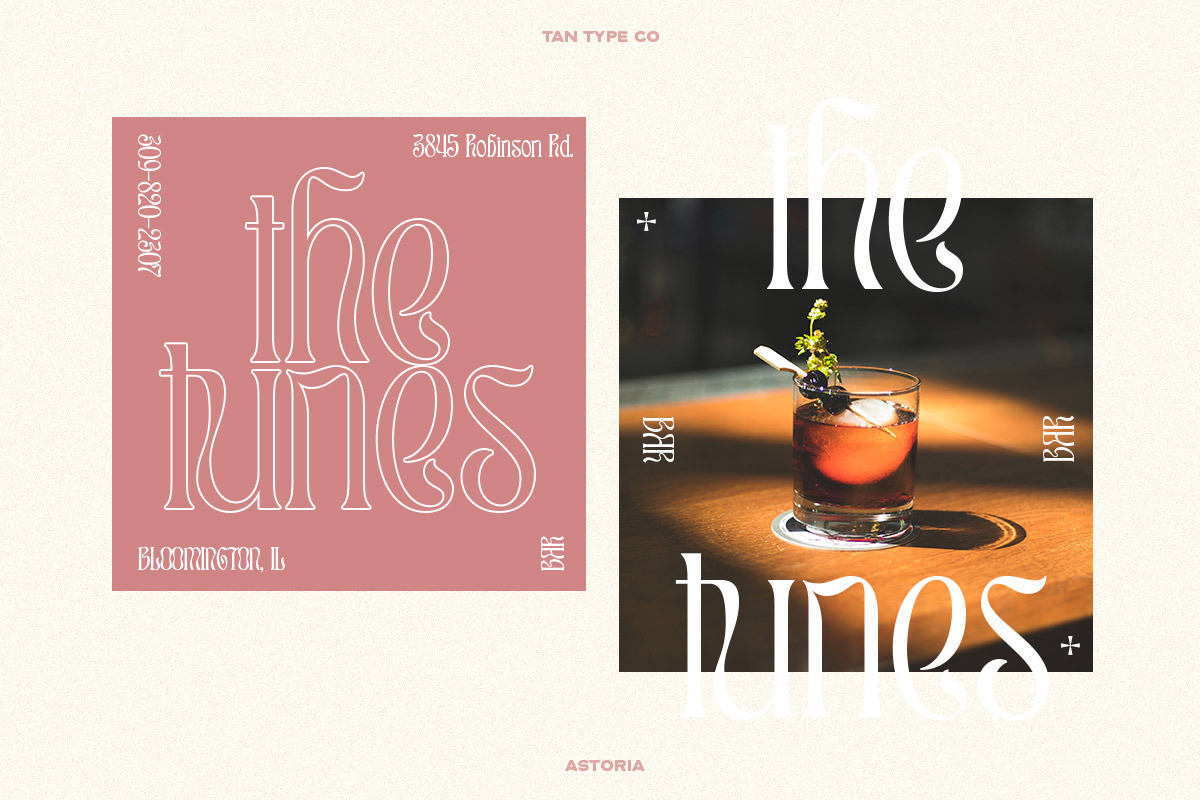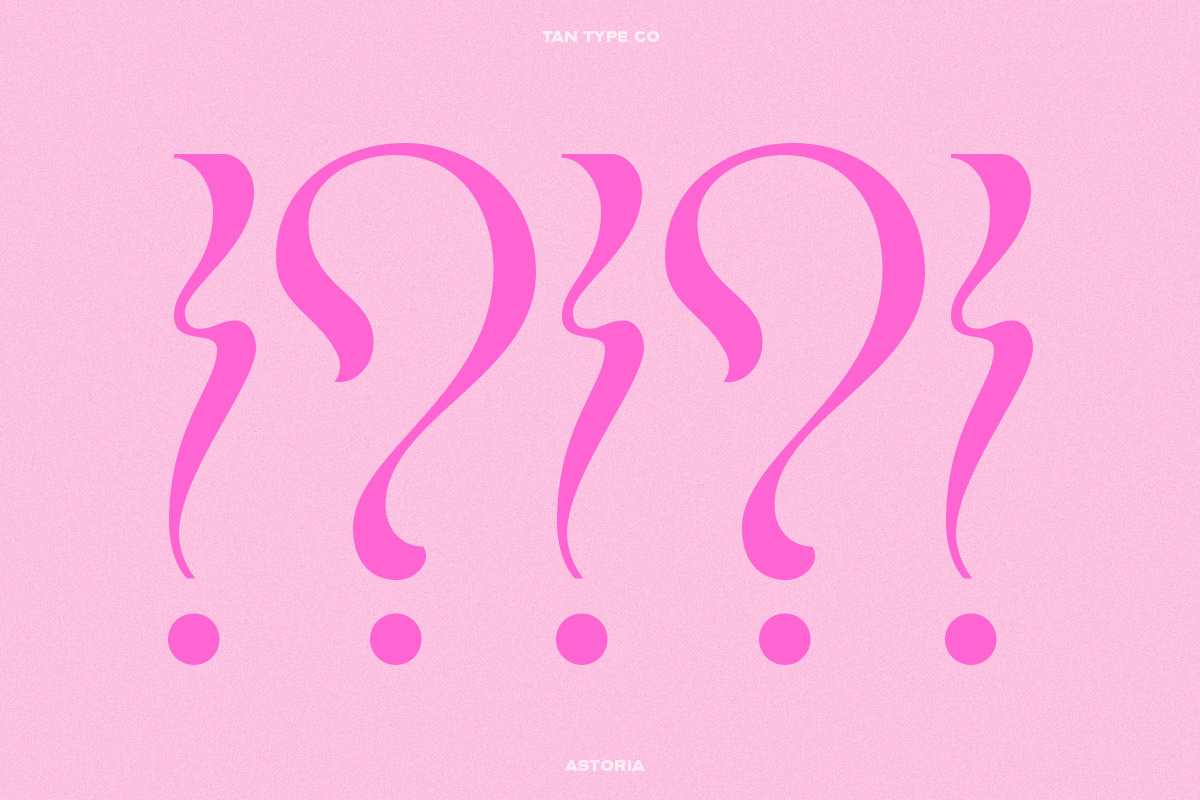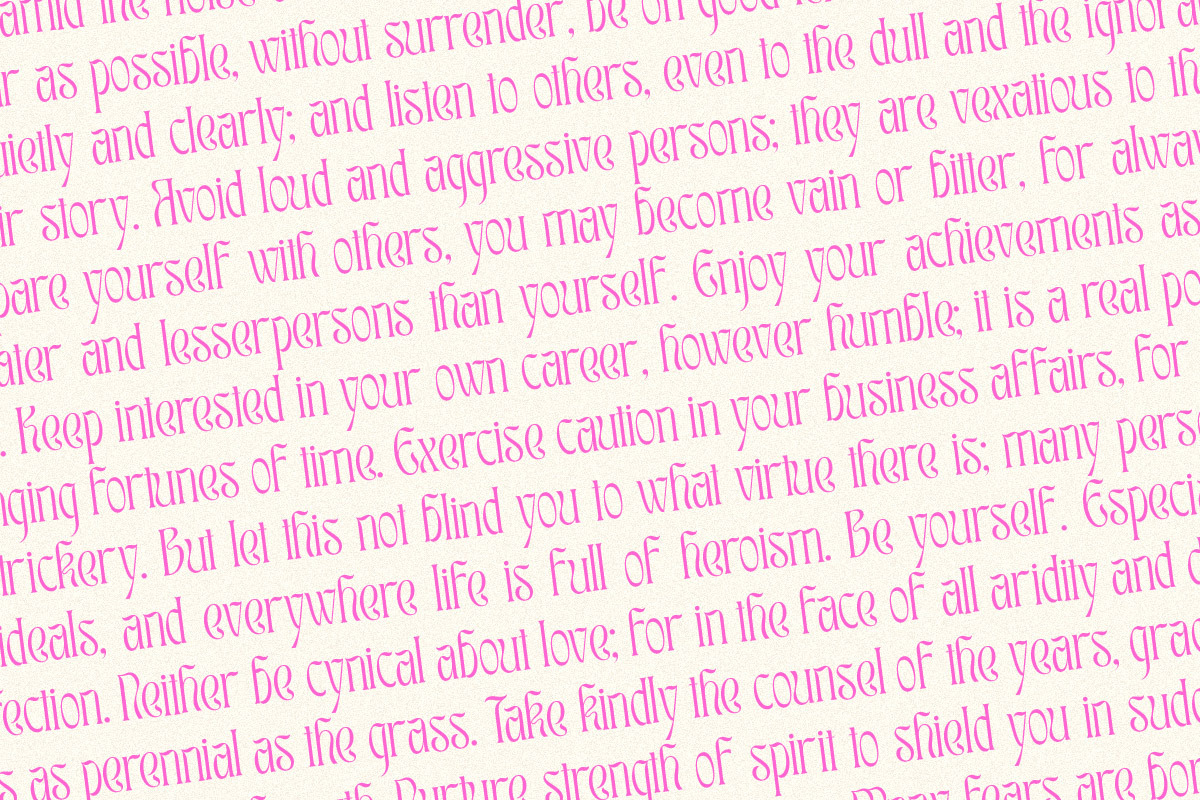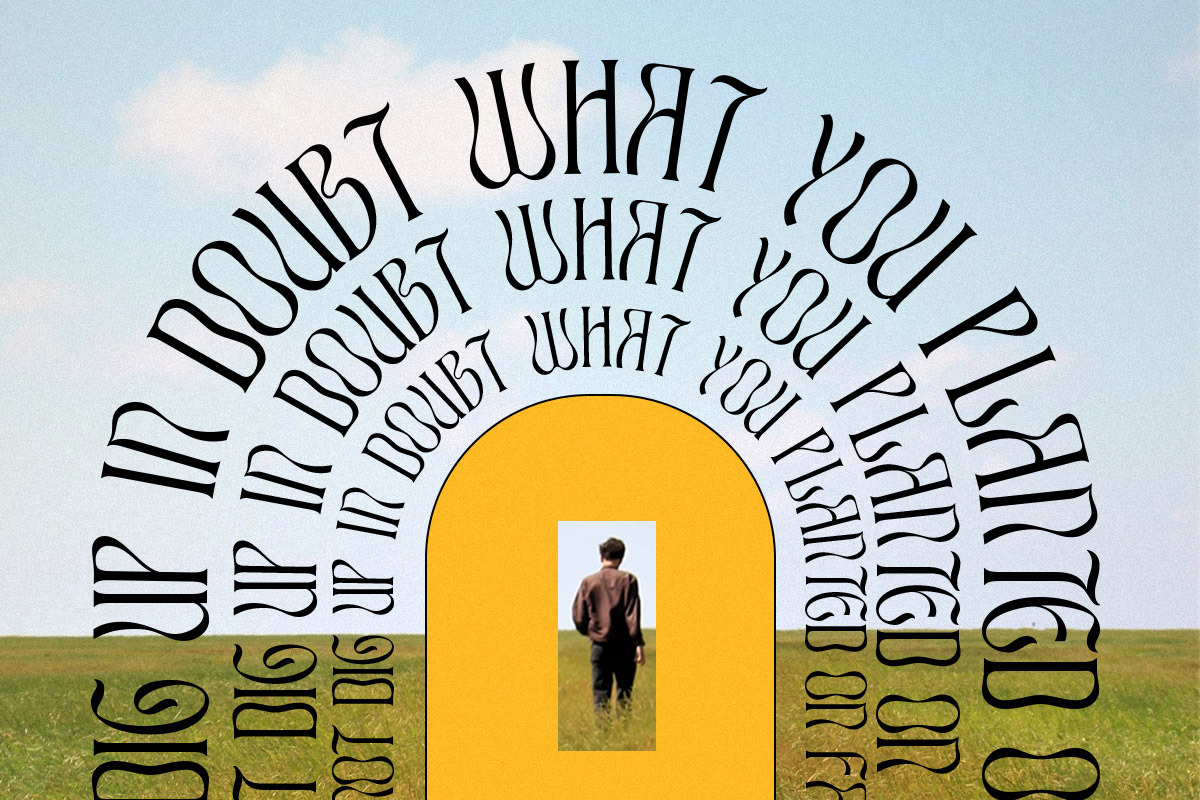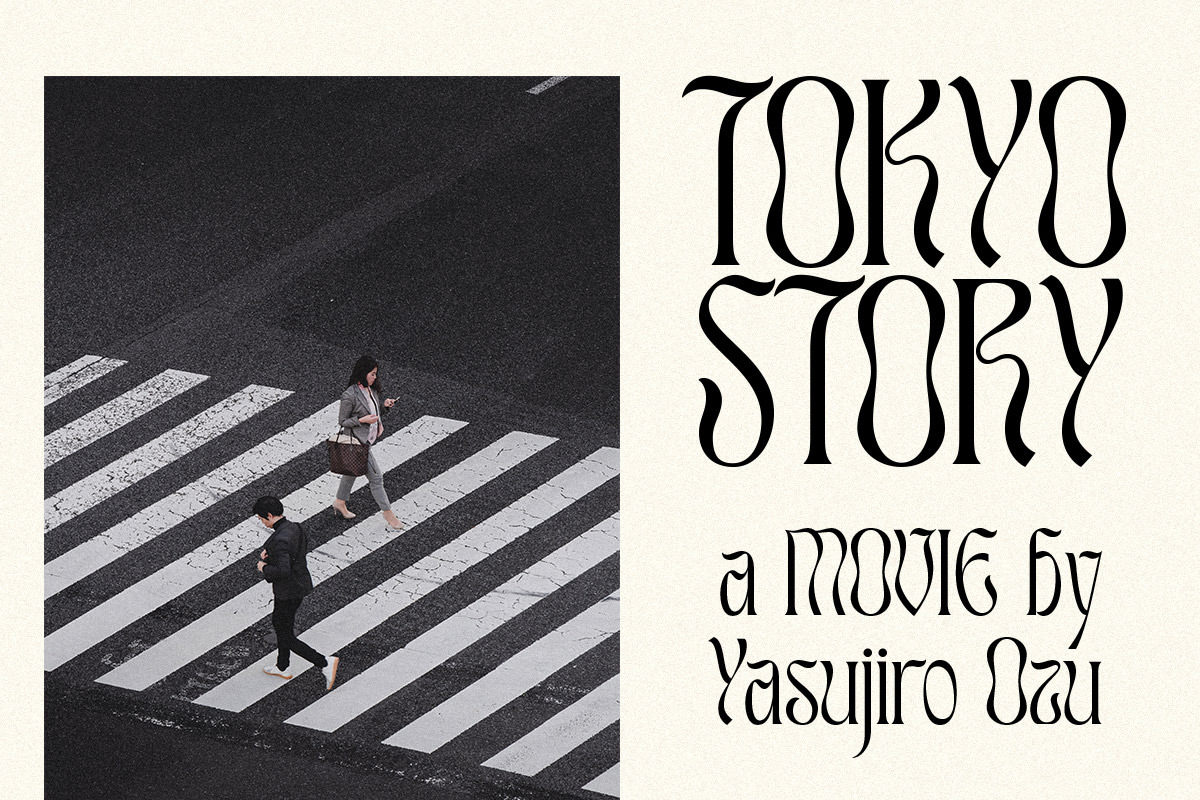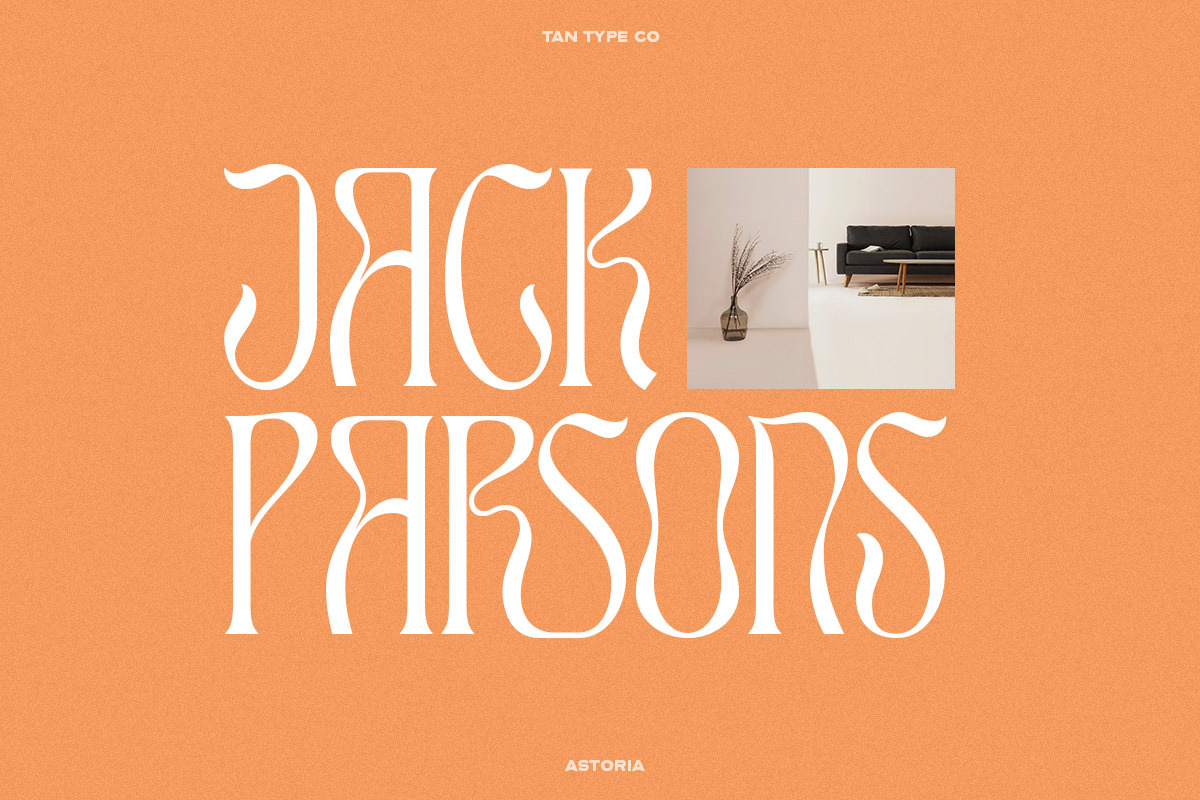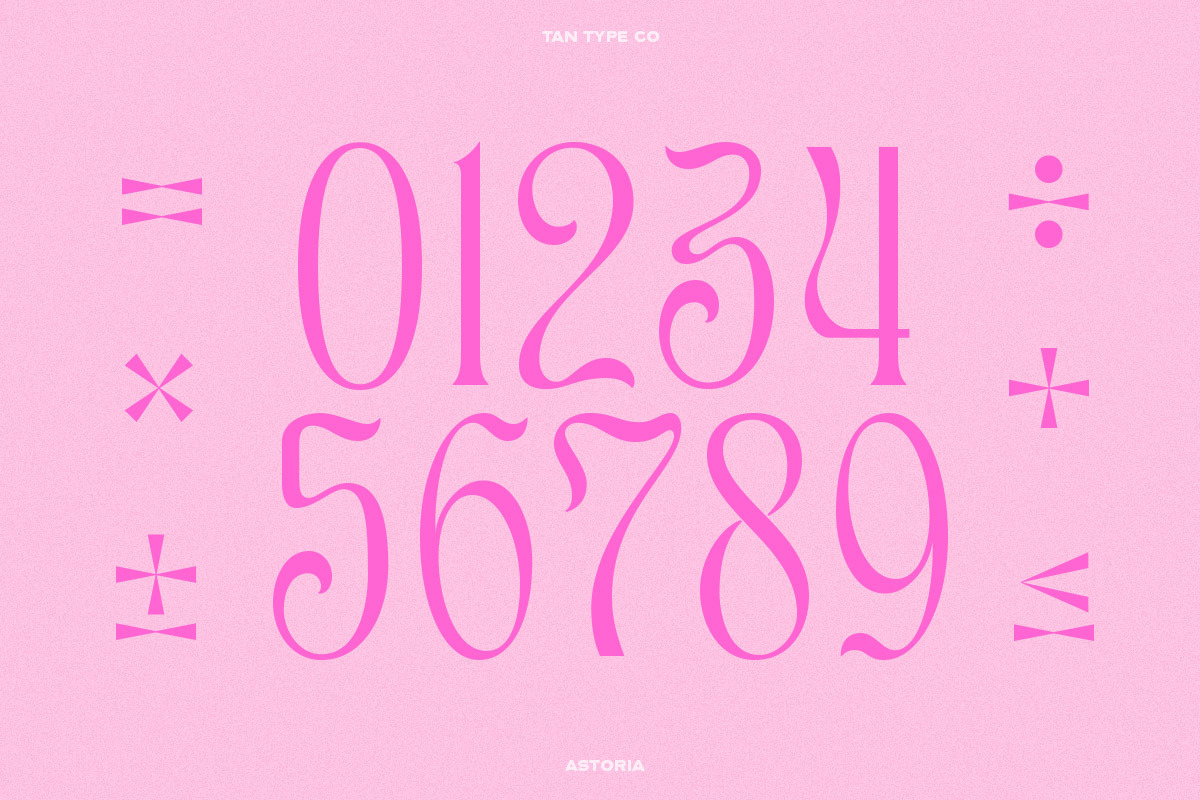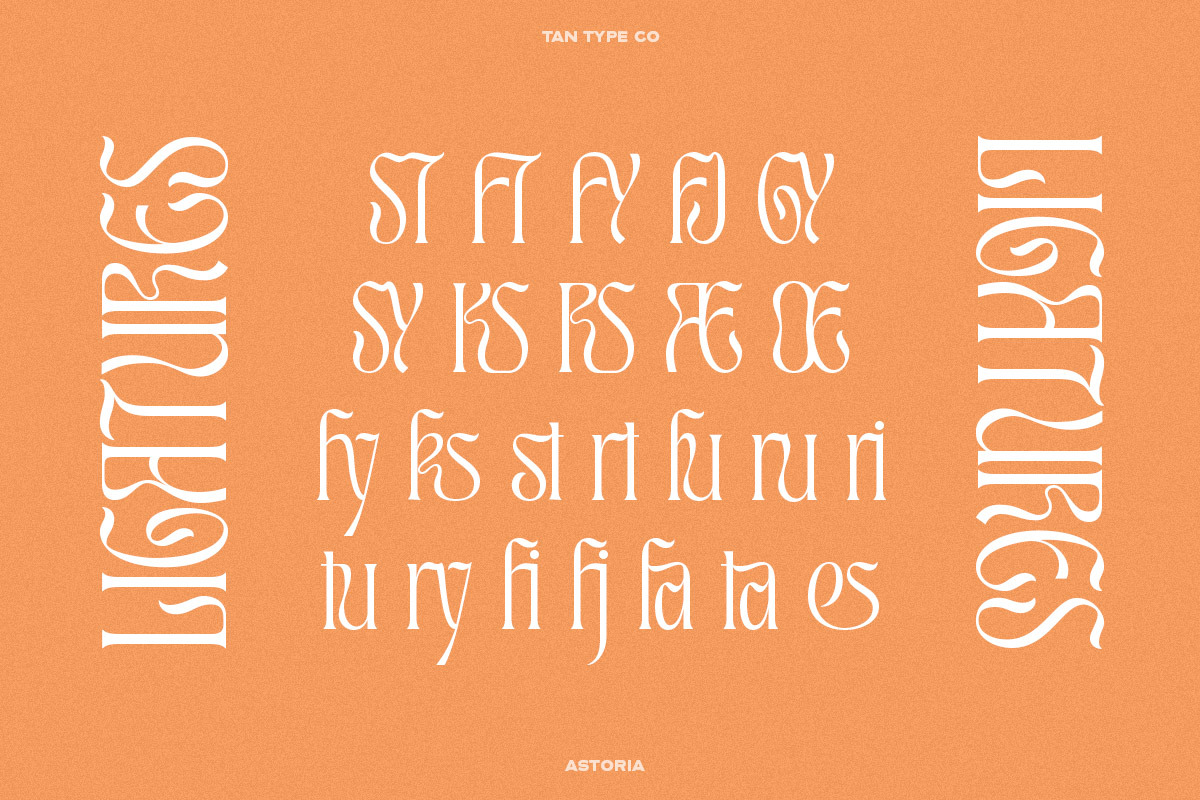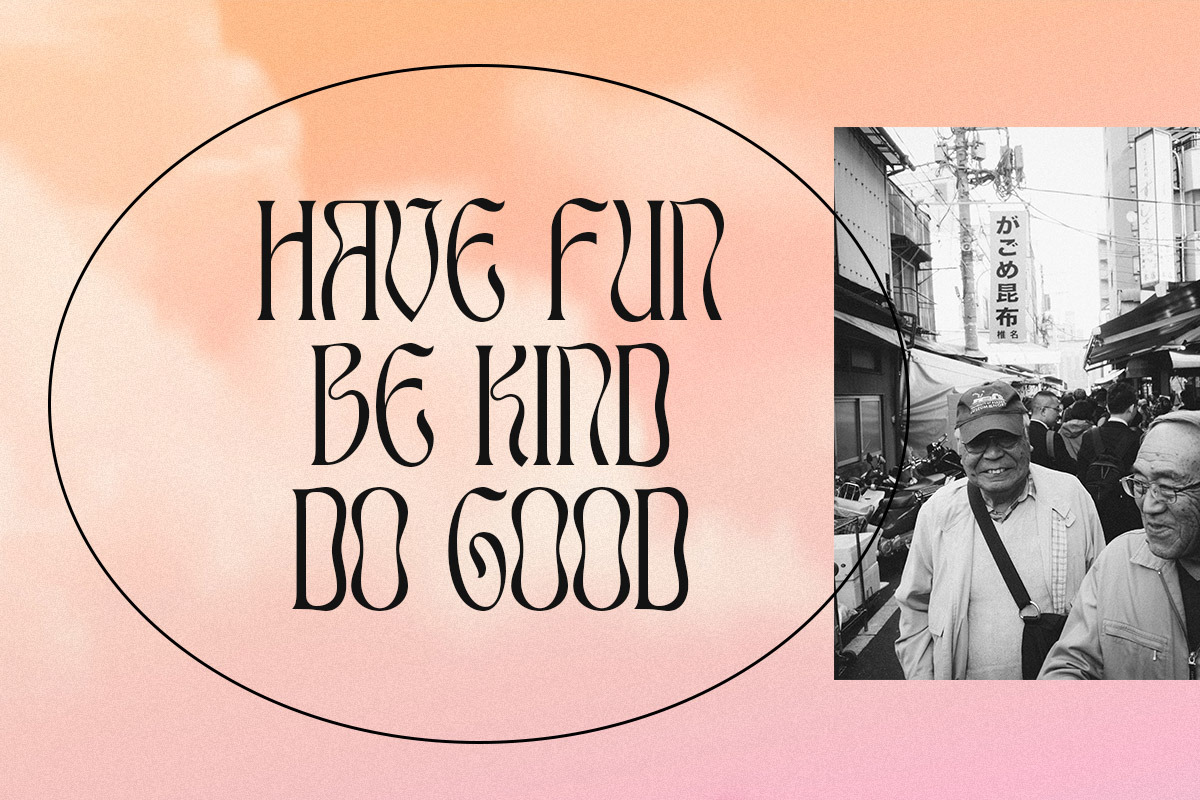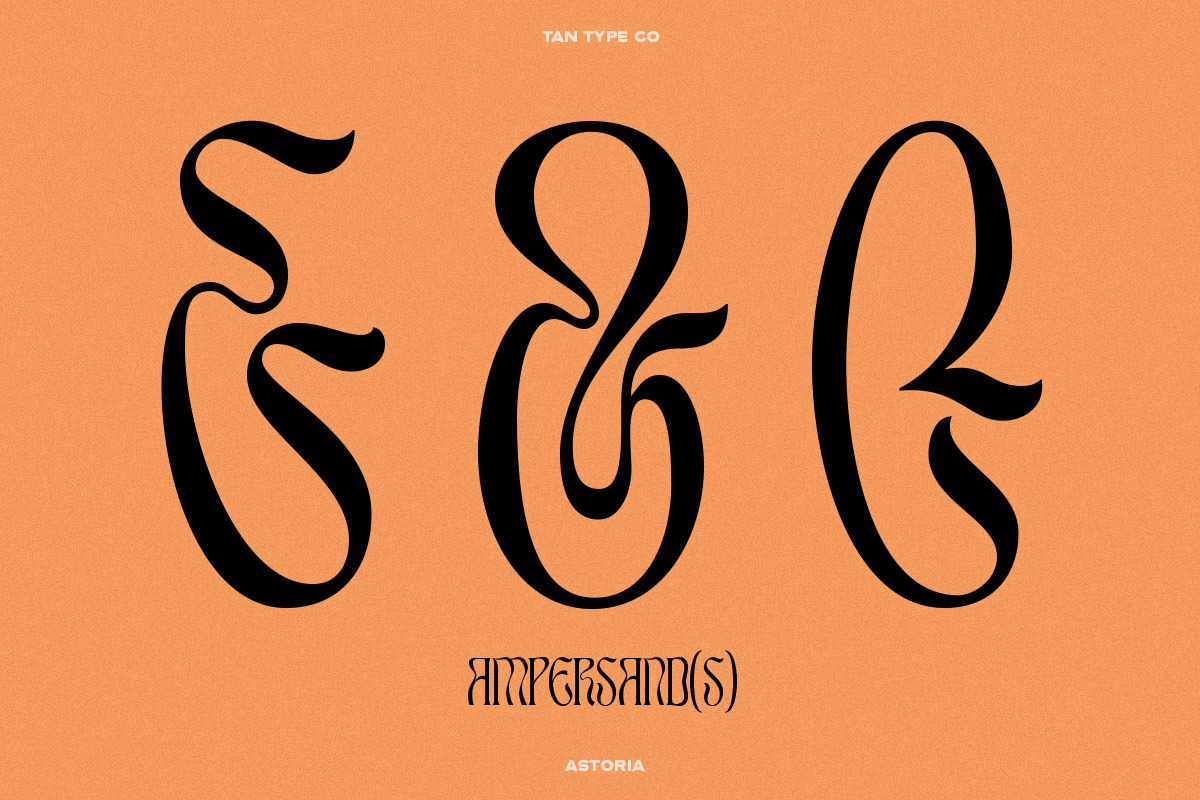
TAN - ASTORIA is a quirky display serif that spells fun. With its psychedelic look, it would look perfect when paired with a conventional serif/sans serif. It can be used for masthead, poster, business identity, you name it.